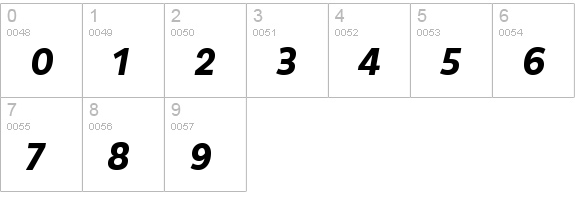
Pluto Cond Bold Italic is a strong, high-contrast, condensed-width, italic variant in the Pluto typeface family \xE2\x80\x94 well suited to headlines, attention-grabbing titles, and strong calls-to-action.
Pluto Cond Bold Italic font is a stunning typeface that exudes sophistication and modernity. Its sleek and elegant design makes it the perfect choice for projects that require a touch of flair and professionalism. The bold and italic styling adds a dynamic and eye-catching element to any text, making it stand out from the crowd. Best of all, Pluto Cond Bold Italic font is available for free download at FontsMarket.com. This means you can easily access this stylish font and use it in your designs without any cost. Whether you're creating a logo, poster, website, or any other project, Pluto Cond Bold Italic font is sure to elevate your design and leave a lasting impression. Download it today and add a touch of sophistication to your work!